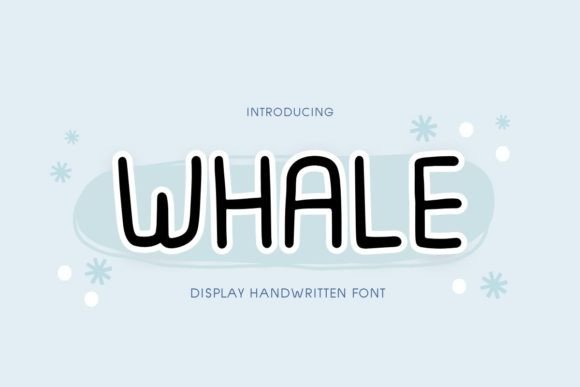
Dive into the world of Whale Font, a captivating handwritten treasure that oozes groovy vibes and playful undertones. Designed by the artistic minds at TONGMON DRAW, this typeface is your ultimate companion for conjuring designs that resonate with joy, warmth, and lightheartedness.
Whale Font isn't just a collection of letters; it's a portal to a realm where your imagination runs wild. Unleash your creativity and embark on an artistic journey that will leave you feeling inspired, uplifted, and eager to share your masterpieces with the world.
Picture this: you're designing a heartfelt birthday invitation, and you stumble upon Whale Font. The moment you lay your eyes on its whimsical curves and charming imperfections, you know you've found the perfect match. This font has a way of capturing the essence of celebration, adding a touch of magic to every word and phrase.
But Whale Font's versatility doesn't stop there. It's equally adept at bringing life to children's designs, creating t-shirts that burst with personality, and crafting eye-catching stickers that demand attention. Its playful nature knows no bounds, making it the ideal choice for adding a dash of whimsy to your creative endeavors.
For those seeking a font that embraces the digital age, Whale Font stands tall. Its meticulous crafting ensures pixel-perfect clarity on high-resolution displays, guaranteeing your designs shine on any screen. Whether you're creating digital graphics or designing for print, Whale Font delivers outstanding results, leaving a lasting impression on your audience.
Step into the realm of Whale Font today and elevate your designs to new heights. Let your creativity soar as you explore its endless possibilities. Experience the joy of creating designs that speak to the heart, designs that evoke laughter, and designs that leave a lasting impact on the world.